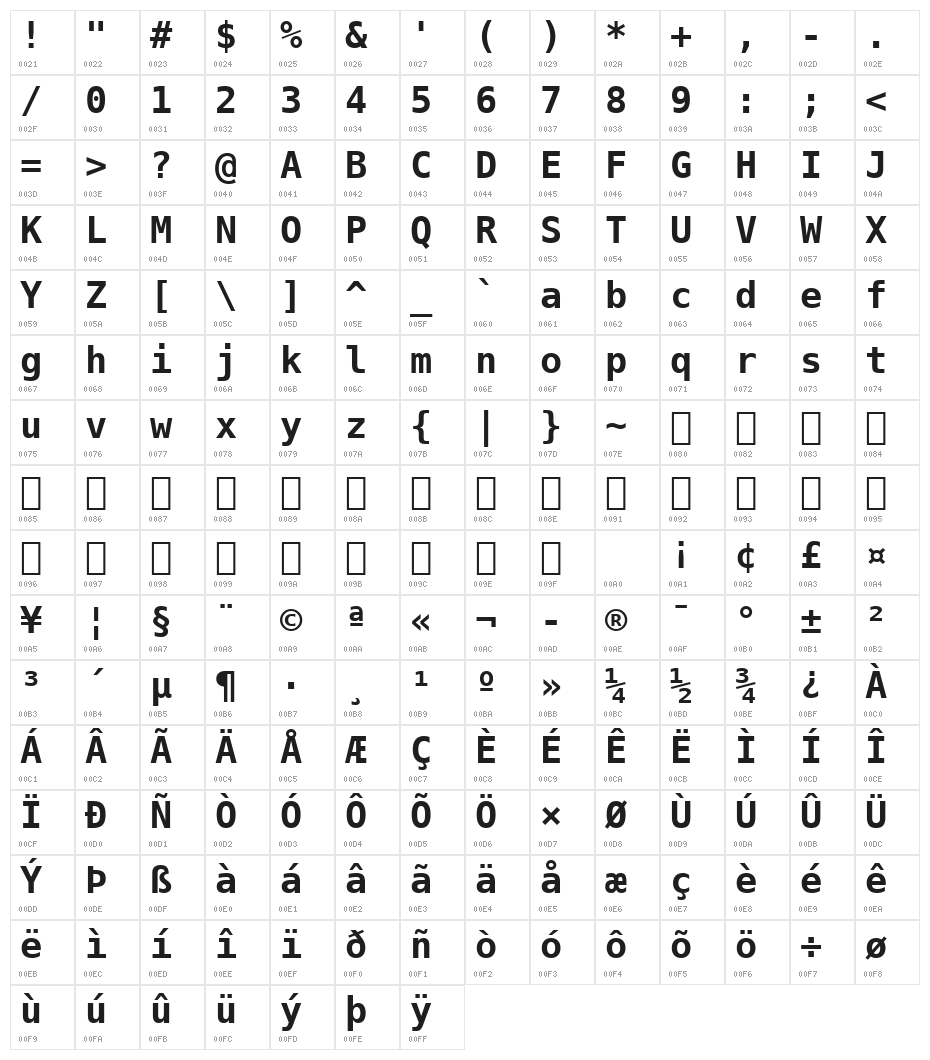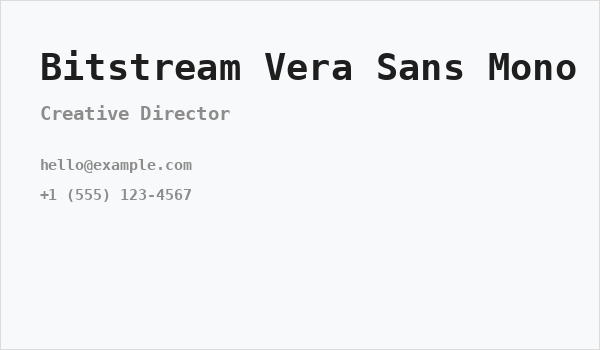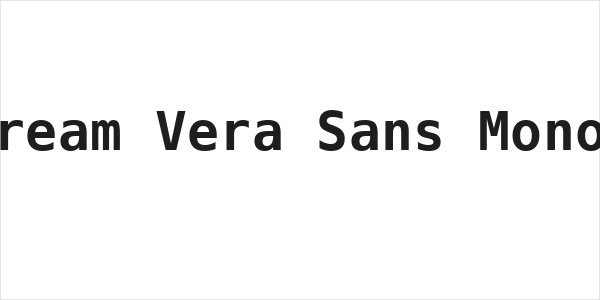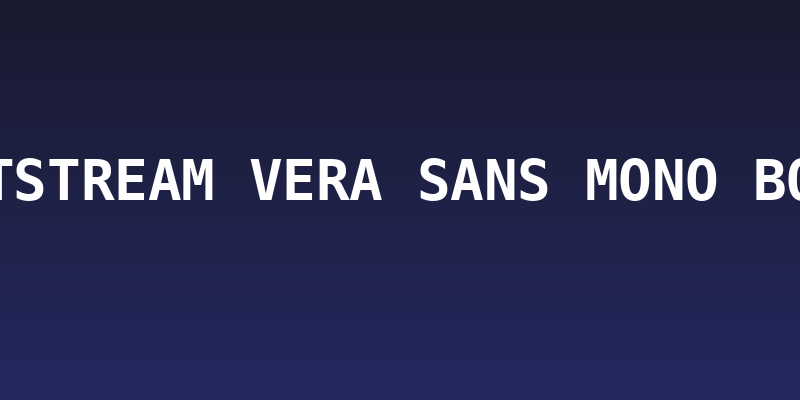
Bitstream Vera Sans Mono Bold Font
Bitstream Vera Sans Mono Bold Description
This typeface is a monospaced font characterized by its clean and modern appearance. Each character occupies the same amount of horizontal space, making it ideal for coding and tabular data. The strokes are bold and consistent, providing excellent readability. The design is straightforward, with minimal contrast in stroke thickness, which enhances its legibility across different sizes and resolutions. The font includes a full set of uppercase and lowercase letters, numbers, and a variety of special characters, ensuring versatility for various applications.
| Use Case | Coding, Technical documentation, Tabular data |
| Proposed Projects | Ideal for coding environments, technical documentation, and any project requiring precise alignment of text. |